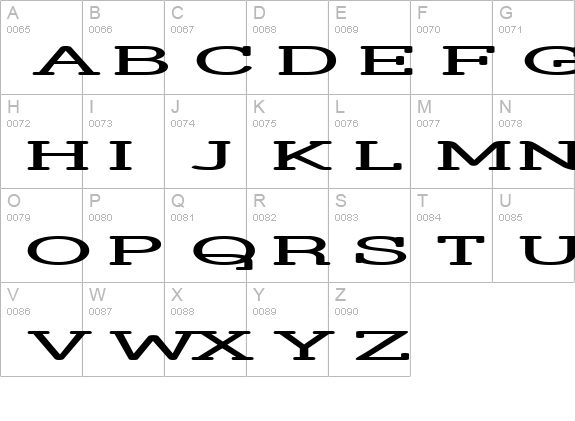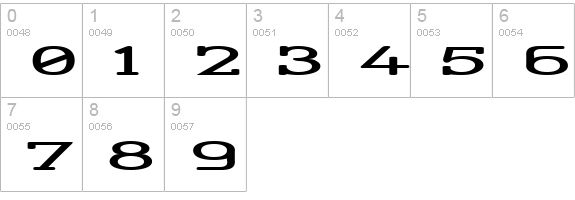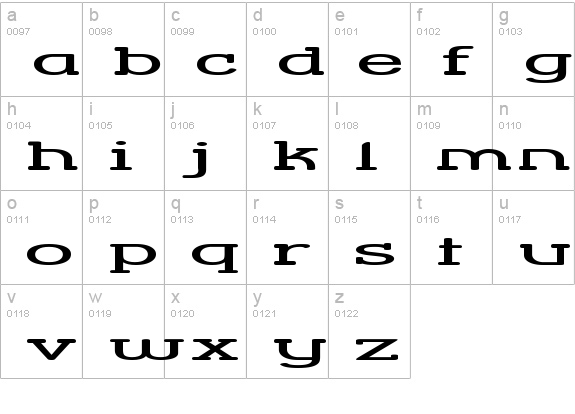
Street Corner Slab HyperExtend Font Details
Street Corner Slab HyperExtend is a bold and eye-catching display font that exudes strength and modernity. Its sharp angles and extended letterforms make a strong statement, perfect for headlines, logos, and branding projects. This font is designed to grab attention and leave a lasting impression on viewers. What sets Street Corner Slab HyperExtend apart is its versatility and ability to work well in various design contexts. Whether you're looking to create a sleek and contemporary look or add a touch of edginess to your designs, this font has you covered. Best of all, Street Corner Slab HyperExtend is available for free download at FontsMarket.com. This means you can easily access this unique and striking font to elevate your design projects without any cost. Don't miss out on the opportunity to add Street Corner Slab HyperExtend to your font collection today!